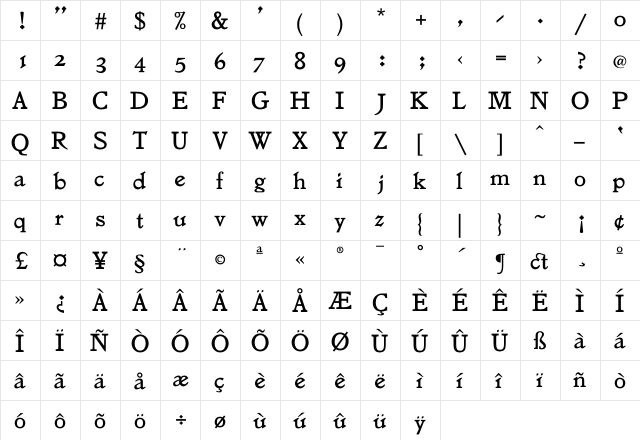
Jenson H Font Preview
Jenson H
Jenson H Font Details
| Style | H |
Design Context for Jenson Typeface
Jenson offers clean, dependable letterforms without strong stylistic allegiance, making it a practical choice for designers who need flexibility.